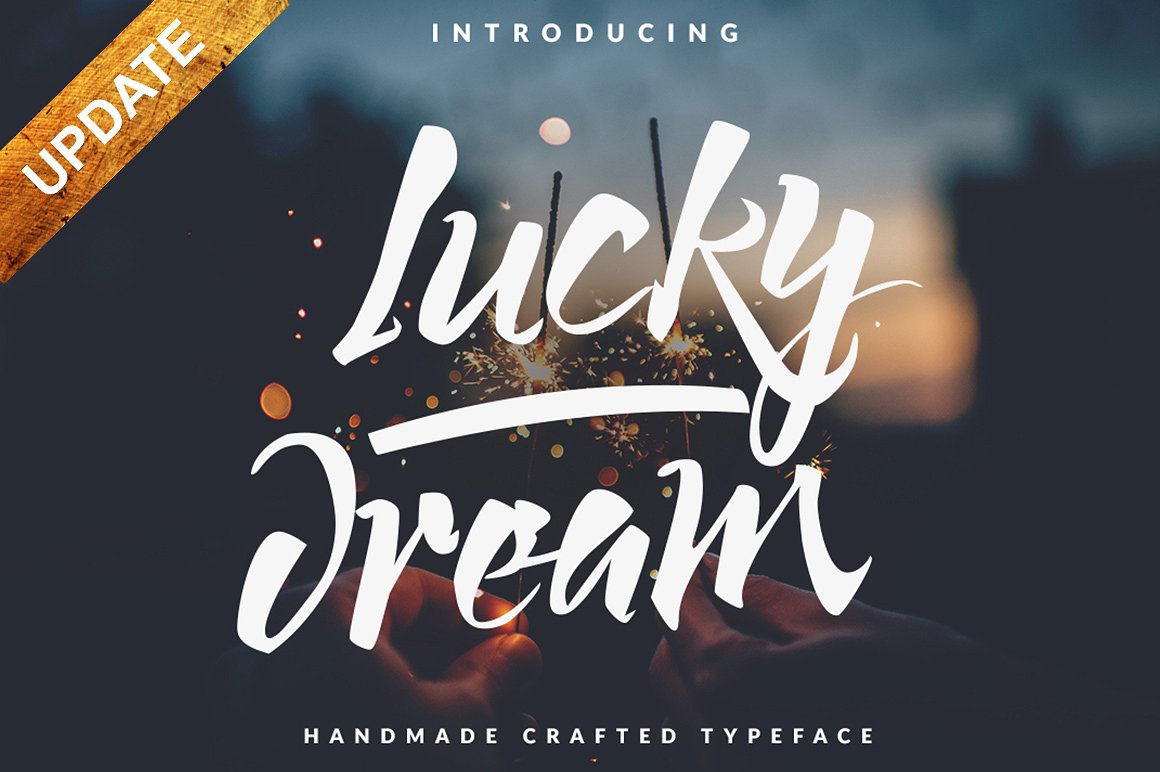
• Lucky Dream Font - Free Handwritten Script
Lucky Dream Handmade TypeFace!
Lucky Dream is a handcrafted typeface style, modern and lifestyle, created to meet the needs of your next design project. Lucky Dream can be used for various purposes. Such as the title, signature, logo, correspondence, wedding invitations, letterhead, signage, labels, newsletters, posters, badges, etc
• Lucky Dream Font
• Category: Display Font
• Included: Alternatives, Ligatures, Uppercase Letters, & Lowercase Letters
• Perfect For: Logos, Titles, Invitations, Posters & More
Preview O The Lucky Dream Handmade Typeface: